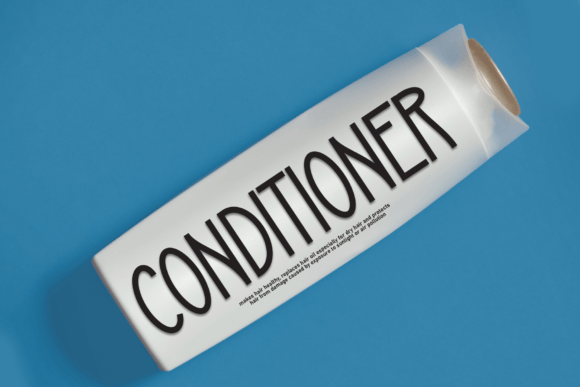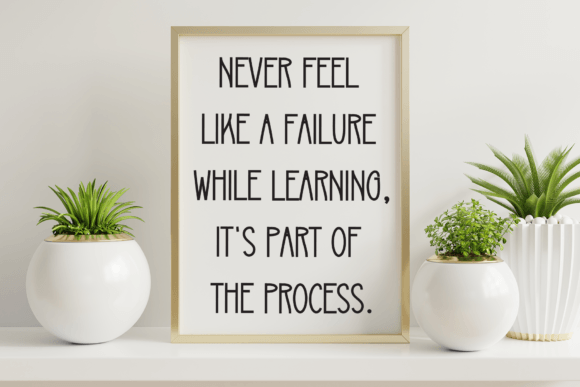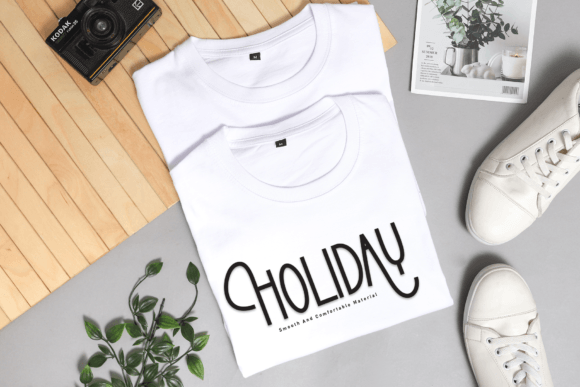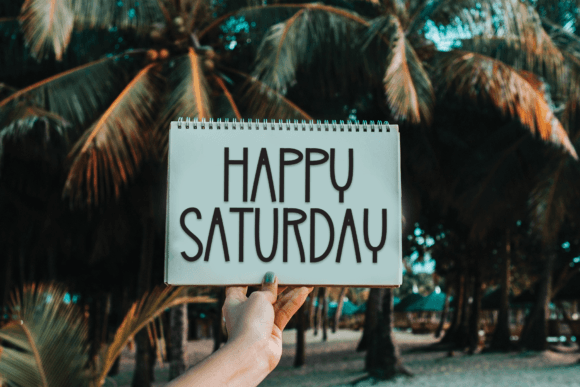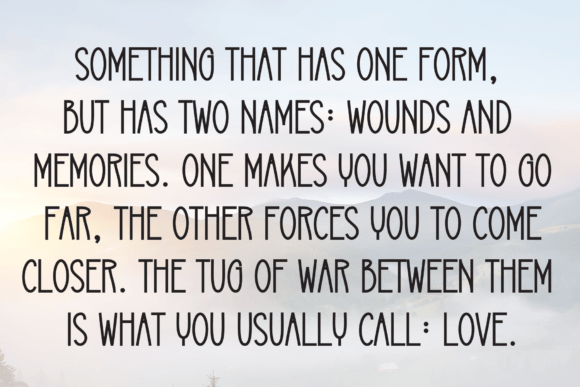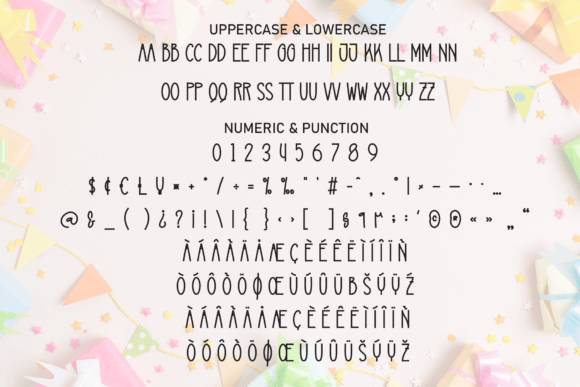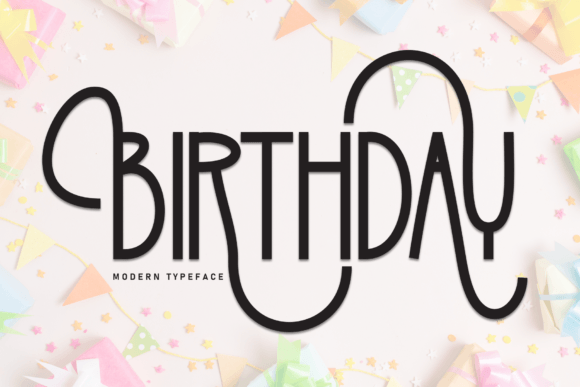
Introducing Birthday Font: The Perfect Choice for Modern Design
When it comes to selecting the right font for your design project, the options can be overwhelming. However, if you’re looking for a font that embodies simplicity, readability, and a touch of casual elegance, look no further than the Birthday Font. This neat and casual sans-serif font is designed to make your message stand clear and approachable, whether you’re working on user interfaces, informative signage, or modern branding.
The Characteristics of Birthday Font
Birthday Font is characterized by its clean lines and friendly character. The sans-serif design ensures that the font remains uncluttered and easy to read, making it perfect for digital and print applications. The clean lines also give the font a modern and sleek look, making it ideal for contemporary designs. The friendly character of the font adds a touch of approachability, making it perfect for designs that require a personal touch.
Uses of Birthday Font
Birthday Font is a versatile font that can be used in a variety of design applications. Some of the most popular uses of this font include:
- User Interfaces: The clean and simple design of Birthday Font makes it perfect for user interfaces. The font is easy to read, even on small screens, making it ideal for mobile apps and websites.
- Informative Signage: The friendly character of Birthday Font makes it perfect for informative signage. The font is easy to read, even from a distance, making it ideal for signs, posters, and banners.
- Modern Branding: Birthday Font is also perfect for modern branding. The font’s clean lines and friendly character make it ideal for logos, business cards, and other branding materials.
Benefits of Using Birthday Font
There are several benefits to using Birthday Font in your design projects. Some of the most significant advantages include:
- Improved Readability: Birthday Font is designed to be easy to read, making it perfect for designs that require a clear and concise message.
- Modern Look: The clean lines and friendly character of Birthday Font give it a modern and sleek look, making it ideal for contemporary designs.
- Versatility: Birthday Font is a versatile font that can be used in a variety of design applications, from user interfaces to informative signage.
Tips for Using Birthday Font
To get the most out of Birthday Font, here are a few tips to keep in mind:
- Use it for Headings and Body Text: Birthday Font is perfect for both headings and body text. Use it to create clear and concise headings, and to make your body text easy to read.
- Experiment with Font Sizes: Birthday Font is designed to be easy to read, even at small font sizes. Experiment with different font sizes to find the perfect size for your design.
- Pair it with Other Fonts: Birthday Font can be paired with other fonts to create a unique and visually appealing design. Experiment with different font combinations to find the perfect pairing.
In conclusion, Birthday Font is a versatile and modern sans-serif font that is perfect for a variety of design applications. Its clean lines, friendly character, and improved readability make it ideal for user interfaces, informative signage, and modern branding. Whether you’re working on a digital or print project, Birthday Font is a great choice for designers and crafters looking for a font that embodies simplicity and approachability.